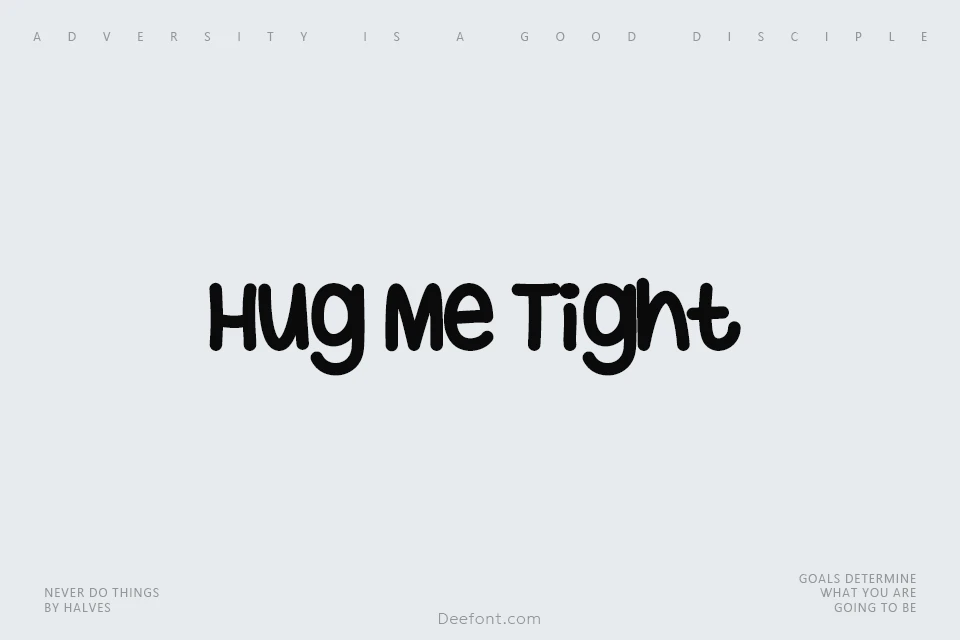
Hug Me Tight Font
Hug Me Tight Font is a playful handwritten script designed by Misti’s Fonts, featuring bold rounded characters with soft curves and uniform spacing. This single-weight typeface includes 337 glyphs covering uppercase, lowercase, numerals, and multilingual support for 95 languages. Its whimsical aesthetic – enhanced by rounded terminals and balanced proportions – makes it ideal for children’s book titles, event invitations, cartoon branding, and decorative packaging. Available in TTF/OTF formats, the font offers technical precision with 2048 units per em for sharp scaling. The cheerful design pairs effectively with minimalist sans-serif fonts for contrast.